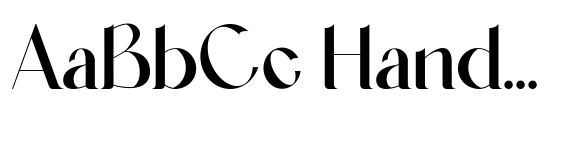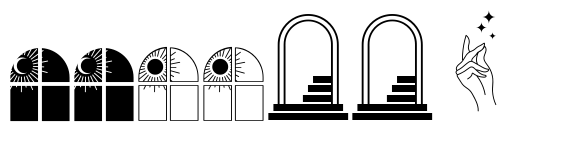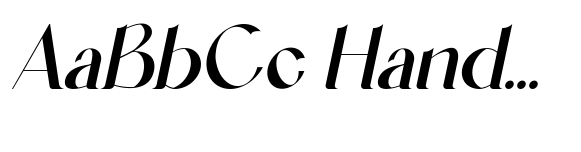
Agraham
von Hishand Studio
Die Schriftfamilie Agraham wurde von Putu Dody Permana entworfen und von Hishand Studio veröffentlicht. Agraham enthält 3 Stile und Familienpaketoptionen. Mehr über diese Familie
Agraham is aesthetic serif font which the inspiration come from the unique Italy's vibes and some little touch from the beauty of Paris, France. It is so perfect for Logo brand, product packaging, advertisement, social media post, fashion brand, magazine headers and many more
complete with
• ligatures
• alternates
• regular
• italic
• icon
• kerning
• multilingual support